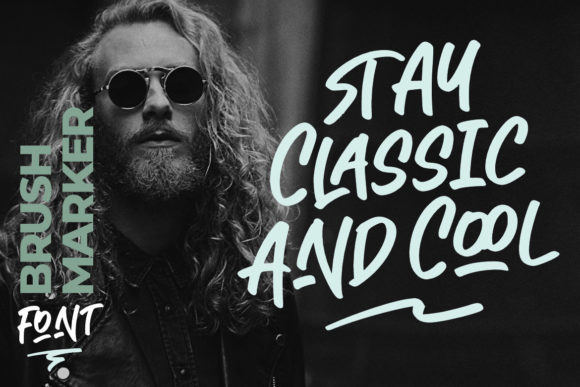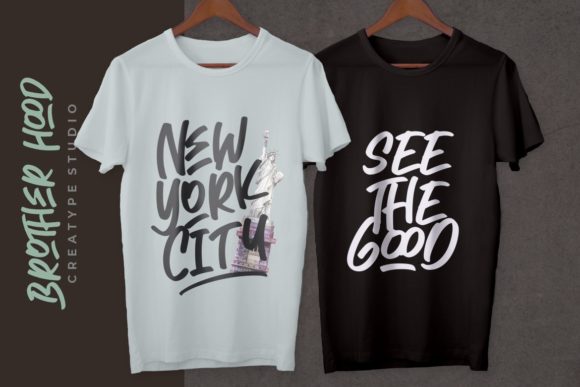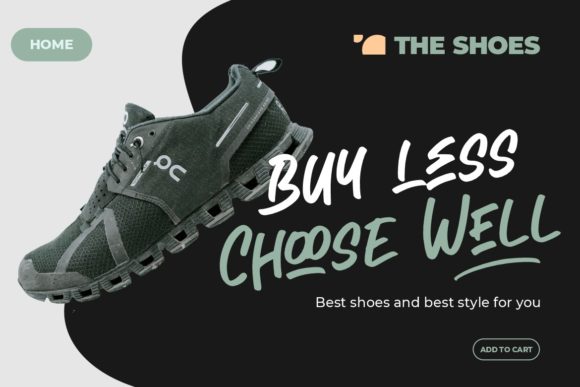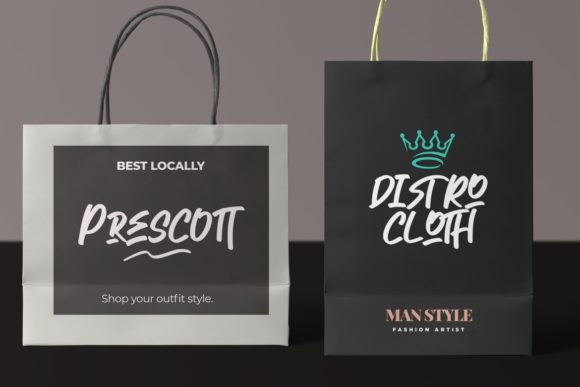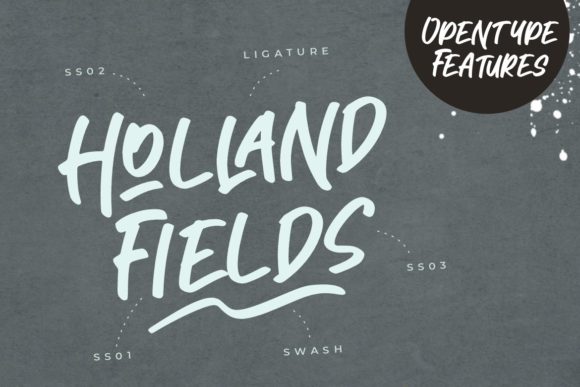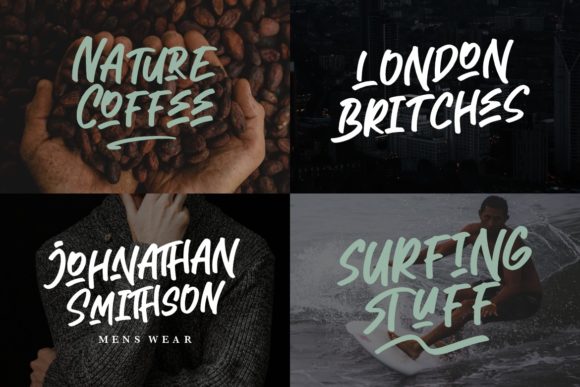
Introducing Brotherhood Font: The Ultimate Urban Styled Display Font
Are you tired of using the same old fonts in your designs? Look no further! Brotherhood Font is here to take your creative projects to the next level. This cool brushed display font is perfect for designers and crafters who want to add a touch of urban style to their work. With its adaptable and casual vibe, Brotherhood Font is sure to become your go-to font for all your design needs.
What Makes Brotherhood Font So Special?
Brotherhood Font is more than just a font – it’s a statement piece. Its unique brushed texture gives it a distinctive look that’s perfect for creating eye-catching designs. Whether you’re working on a logo, a poster, or a social media graphic, Brotherhood Font is sure to make your design stand out from the crowd.
One of the best things about Brotherhood Font is its adaptability. It can be used in a variety of design contexts, from casual and playful to bold and edgy. The font’s urban style makes it perfect for designs that require a bit of attitude and swagger.
Brotherhood Font is PUA (Private Use Area) encoded, which means that you can access all of the glyphs and swashes with ease. PUA encoding allows font designers to include additional characters and symbols in their fonts, making them more versatile and useful for designers.
With Brotherhood Font, you get access to a wide range of glyphs and swashes that you can use to add extra flair to your designs. Whether you want to add a decorative touch or create a unique logo, Brotherhood Font’s PUA encoding makes it easy to do so.
- Use it as a display font: Brotherhood Font is perfect for headlines, titles, and other display text. Its bold and eye-catching design makes it perfect for grabbing attention.
- Experiment with different sizes: Brotherhood Font looks great in a variety of sizes, from small and subtle to large and bold. Experiment with different sizes to find the one that works best for your design.
- Pair it with other fonts: Brotherhood Font pairs well with a variety of other fonts, from sans-serif fonts like Arial and Helvetica to script fonts like Pacifico and Great Vibes. Experiment with different font combinations to find the one that works best for your design.
Brotherhood Font is perfect for a wide range of designers and crafters, including:
- Graphic designers: Brotherhood Font is perfect for graphic designers who want to add a touch of urban style to their designs.
- Log designers: The font’s bold and eye-catching design makes it perfect for logos and branding.
- Crafters: Brotherhood Font is perfect for crafters who want to add a personal touch to their projects, from handmade cards to DIY home decor.
- Social media influencers: The font’s urban style makes it perfect for social media graphics and posts.